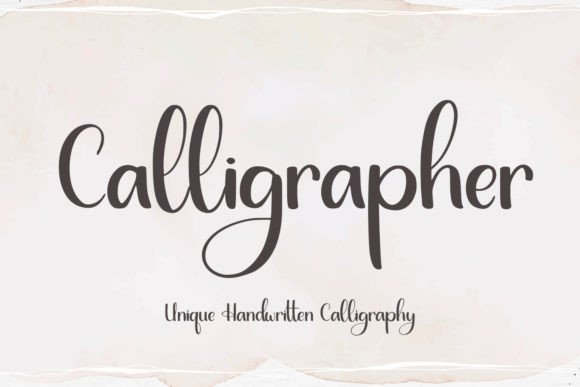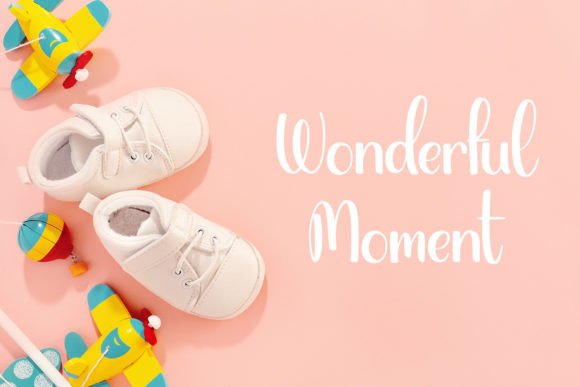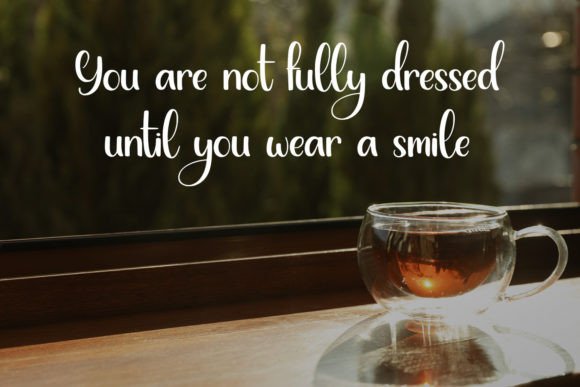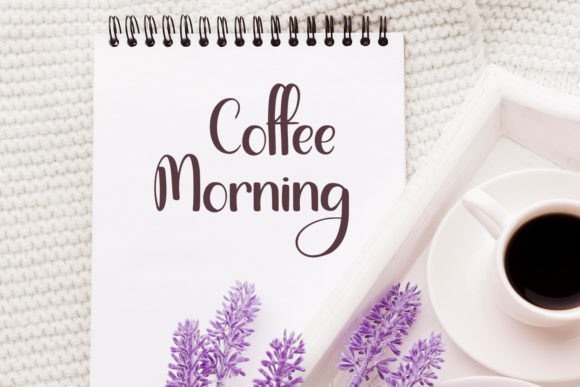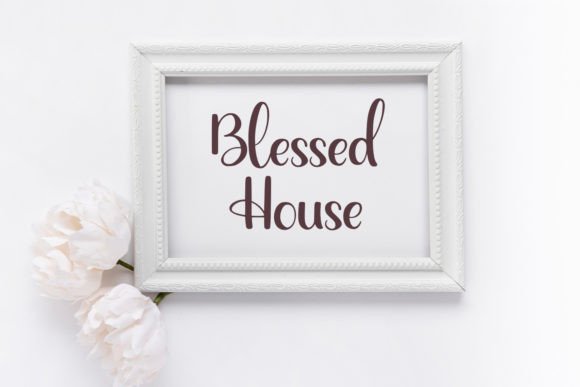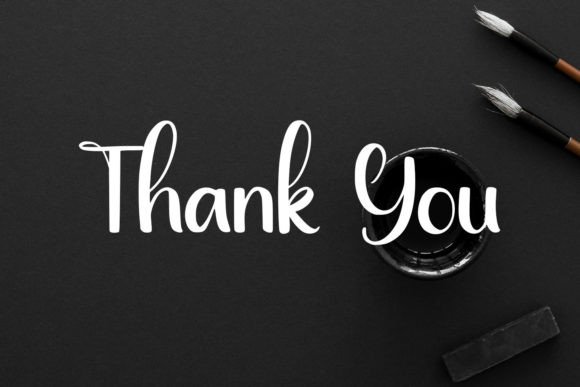
Calligrapher
About Calligrapher
introducing
CALLIGRAPHER
– unique handwriting font –
CALLIGRAPHER is a natural handwriting font.
It is great for branding, quotes, logos, t-shirt designs, tote bag designs, cards, banners, social media, and more.